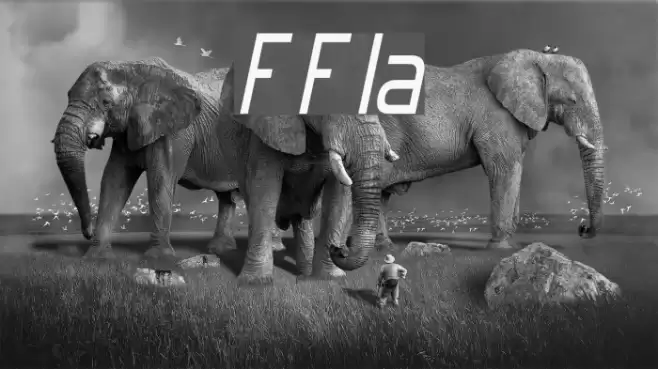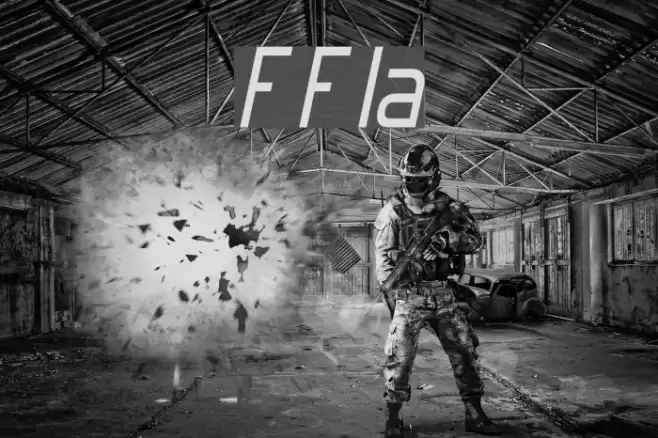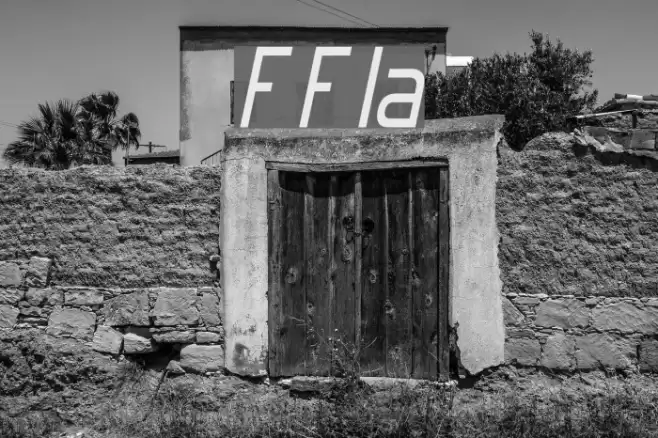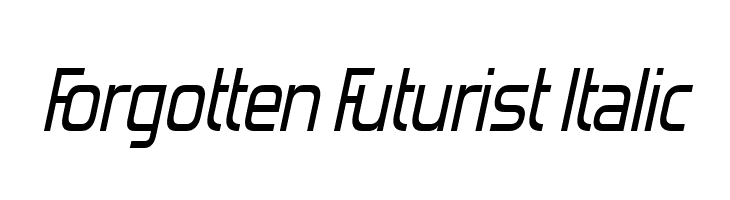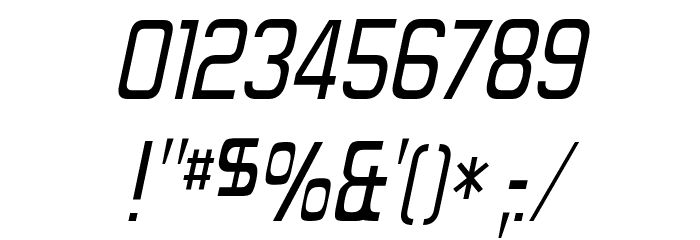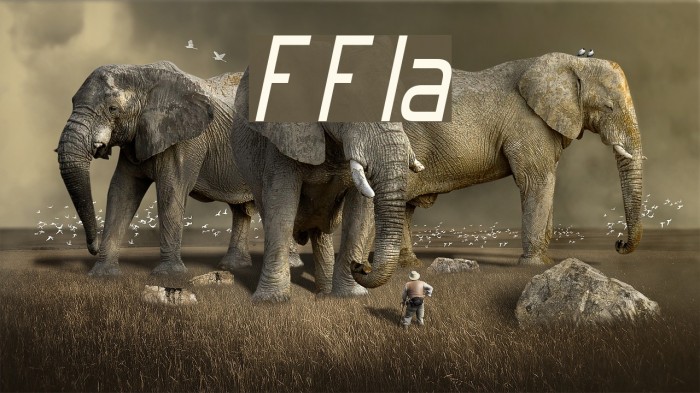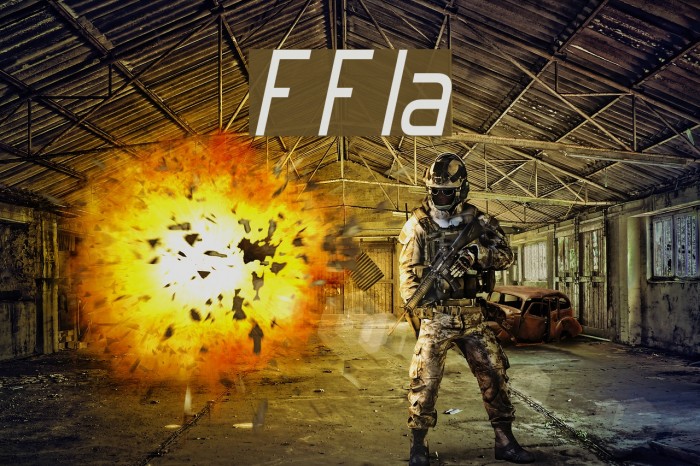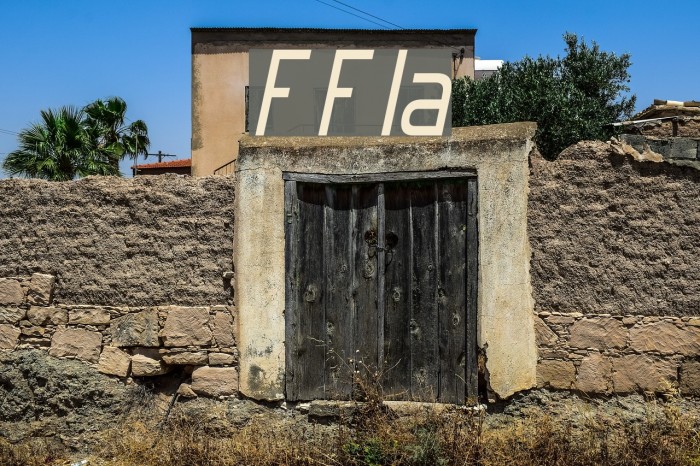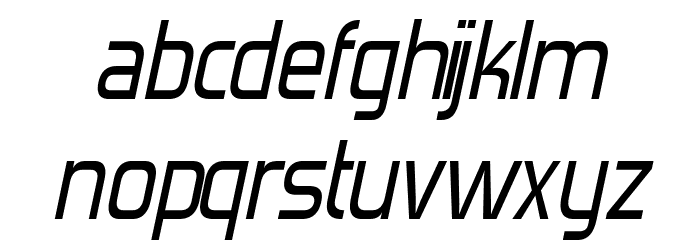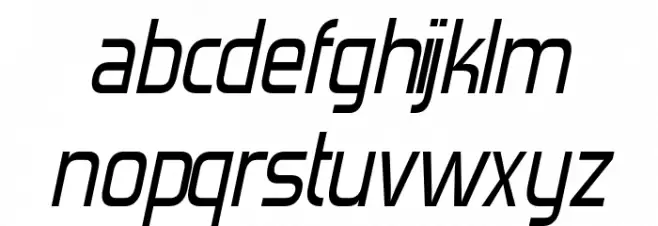
Forgotten Futurist Italic Font
Forgotten Futurist Italic Description
This font features a sleek, futuristic design with a distinct italic slant, giving it a sense of motion and modernity. The characters are elongated and slightly condensed, enhancing their streamlined appearance. The strokes are consistent in weight, providing a uniform look across all characters. The uppercase letters are tall and commanding, while the lowercase letters maintain a balanced proportion. The numerals are clear and easily distinguishable, making them suitable for various applications. Special characters are well-integrated, maintaining the overall aesthetic of the font. This style is ideal for projects that require a contemporary and dynamic feel.
A sleek, italic font with a futuristic and streamlined design from Formal fonts.
- Proposed Projects: Ideal for tech branding, sci-fi posters, modern advertising, and digital interfaces.
- Use Case: Headlines, Logos, Digital interfaces